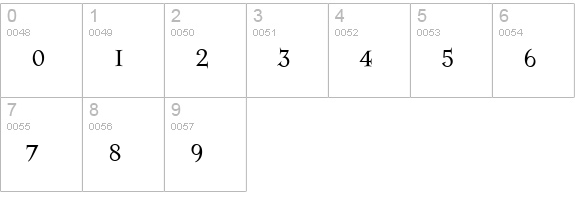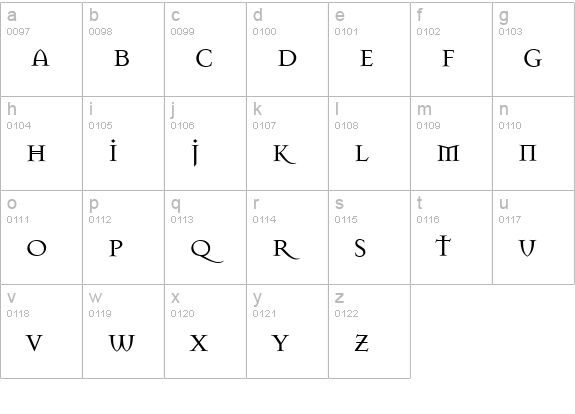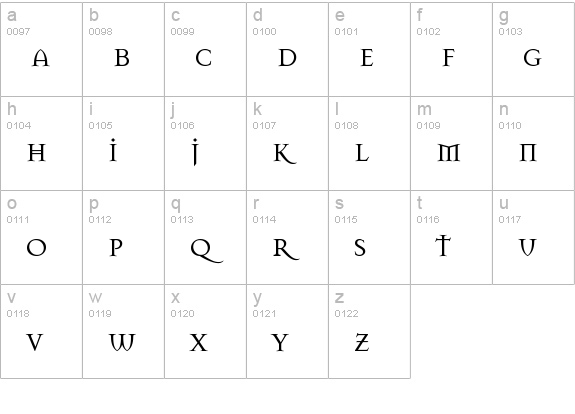
MasonSuper Font Details
Introducing MasonSuper, a captivating and versatile font that effortlessly combines modern aesthetics with a touch of vintage charm. With its sleek lines, elegant curves, and distinctive letterforms, MasonSuper is the perfect choice for any project that demands a unique and eye-catching typography. This versatile font comes in a variety of weights and styles, allowing you to create stunning designs that truly stand out. Whether you are designing a logo, a book cover, a poster, or a website, MasonSuper provides endless possibilities to bring your creative visions to life. What's even better is that MasonSuper is absolutely free! Yes, you read that right. This remarkable font is freely available to download at FontsMarket.com, one of the leading online platforms for high-quality fonts. Now you can enhance your designs with this exceptional typeface without breaking the bank. MasonSuper's clean and legible design ensures readability across various mediums and sizes, making it suitable for both print and digital projects. Its timeless appeal and versatility make it an excellent choice for a wide range of applications, from branding and advertising to editorial and packaging designs. So why wait? Download MasonSuper now from FontsMarket.com and unlock a world of creative possibilities. Let this remarkable font elevate your designs to new heights, leaving a lasting impression on your audience. Embrace the freedom of expression that MasonSuper brings, and let your creativity shine through with every letter and word.